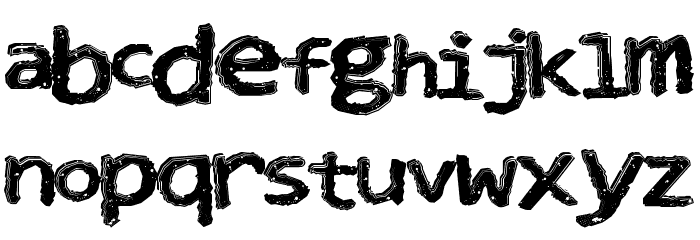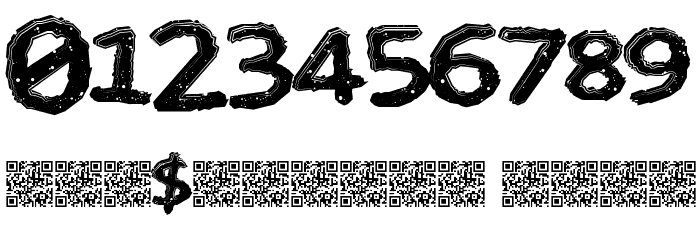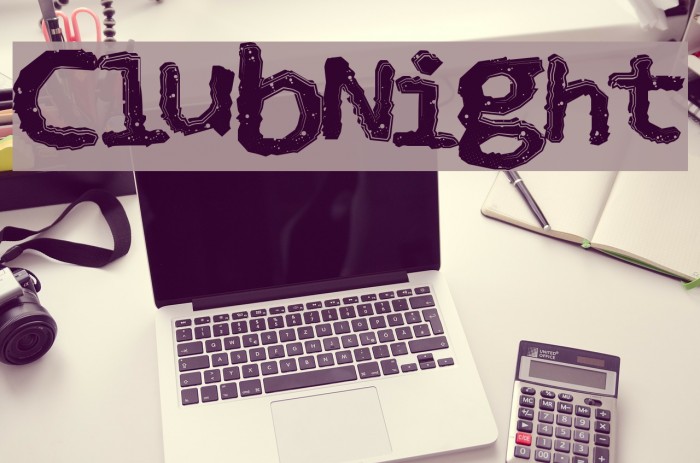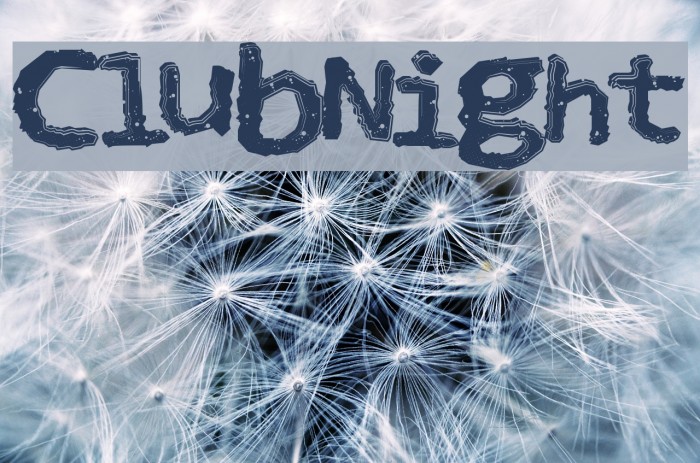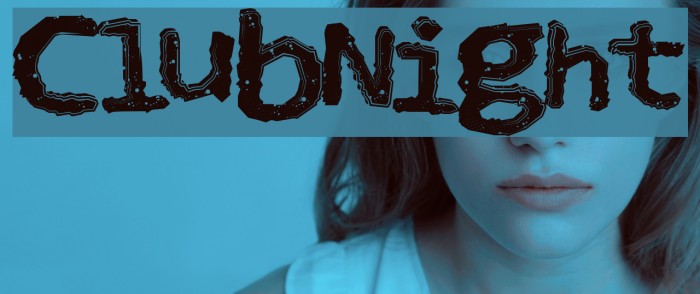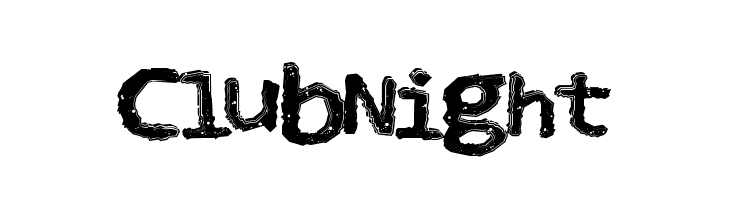
ClubNight Font
This font features a bold, textured style with a hand-drawn appearance, giving it a unique and artistic flair. The characters are irregular and slightly distorted, creating a sense of movement and energy. The strokes are thick and uneven, with a rough, sketch-like quality that adds to its dynamic look. This font is highly decorative, making it suitable for eye-catching designs. The uppercase and lowercase letters maintain a consistent style, while the numbers and special characters complement the overall aesthetic. Its playful and informal nature makes it ideal for creative projects.
A bold, textured, hand-drawn font with a dynamic and artistic style.
- Proposed Projects: Ideal for posters, album covers, event flyers, and creative branding projects.